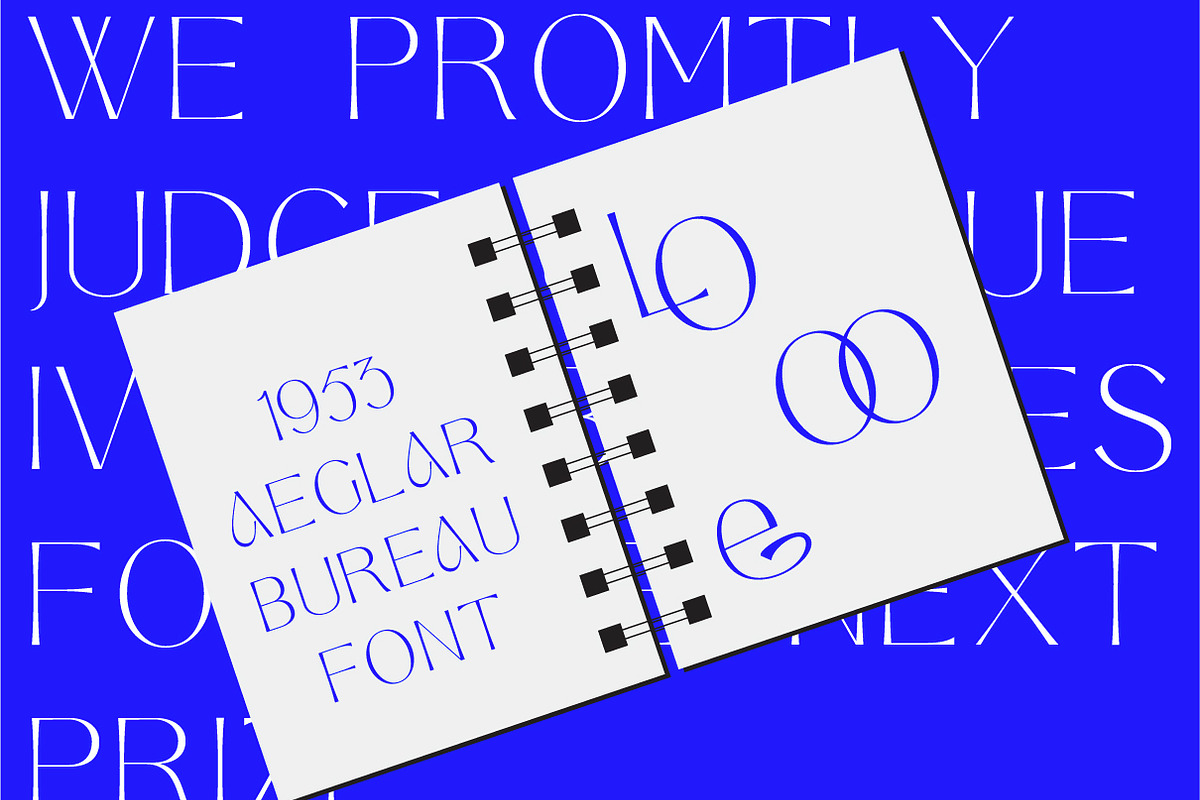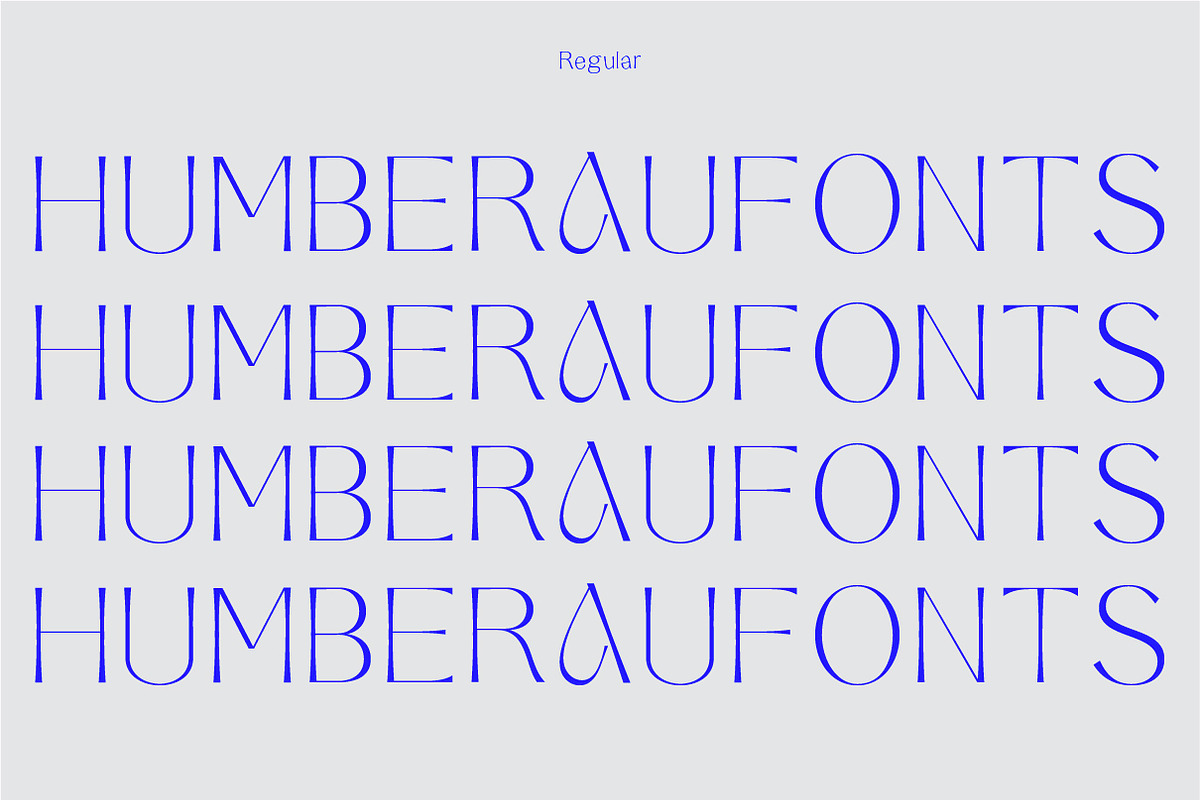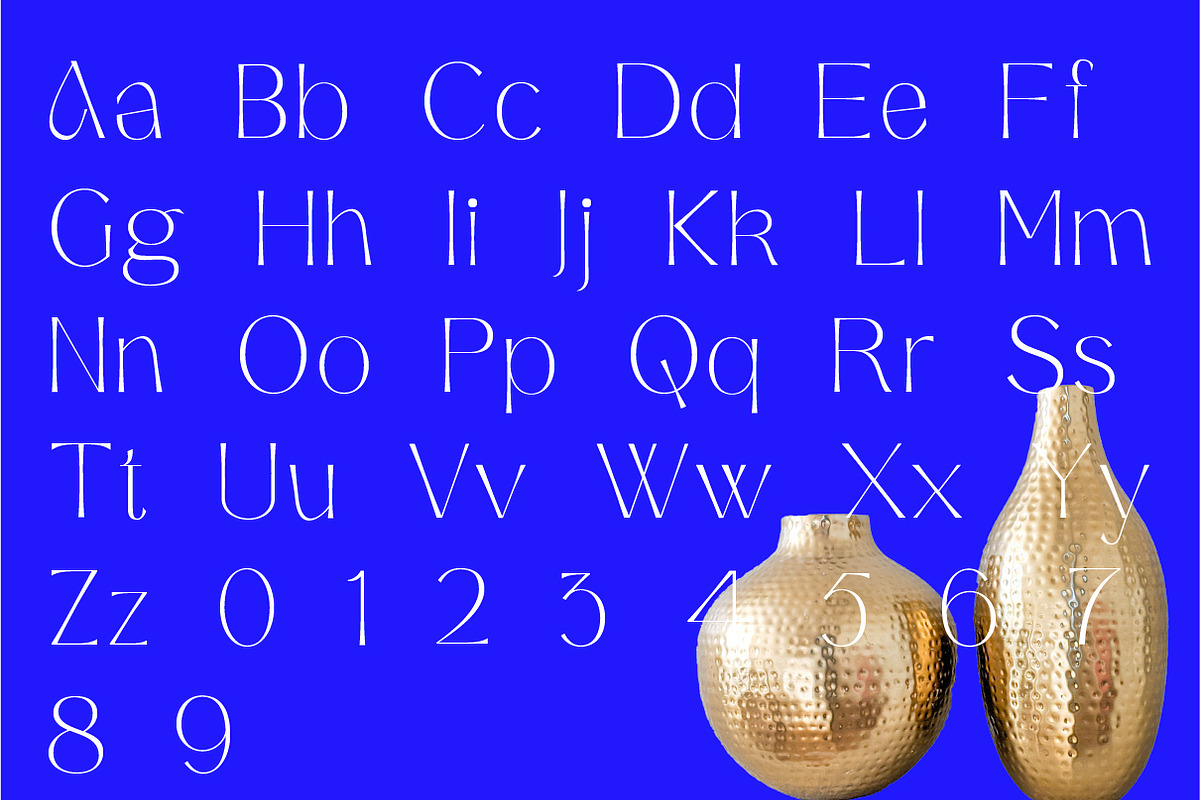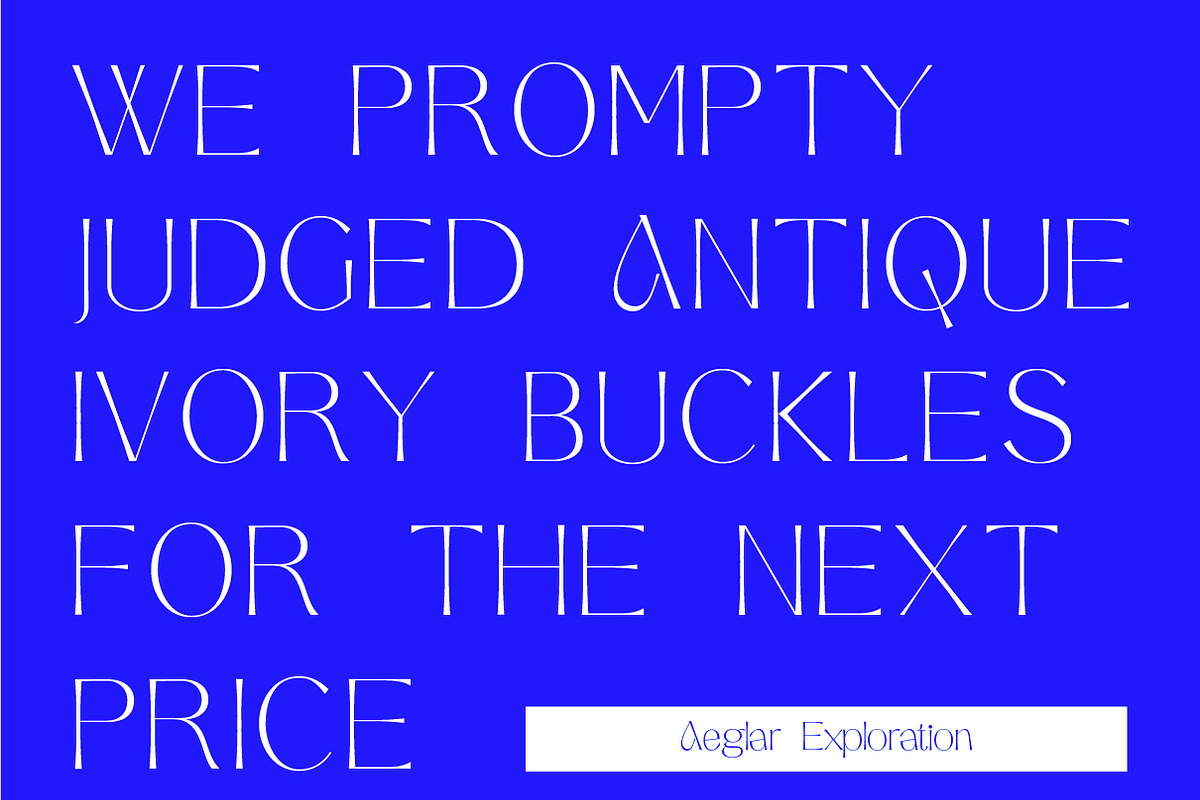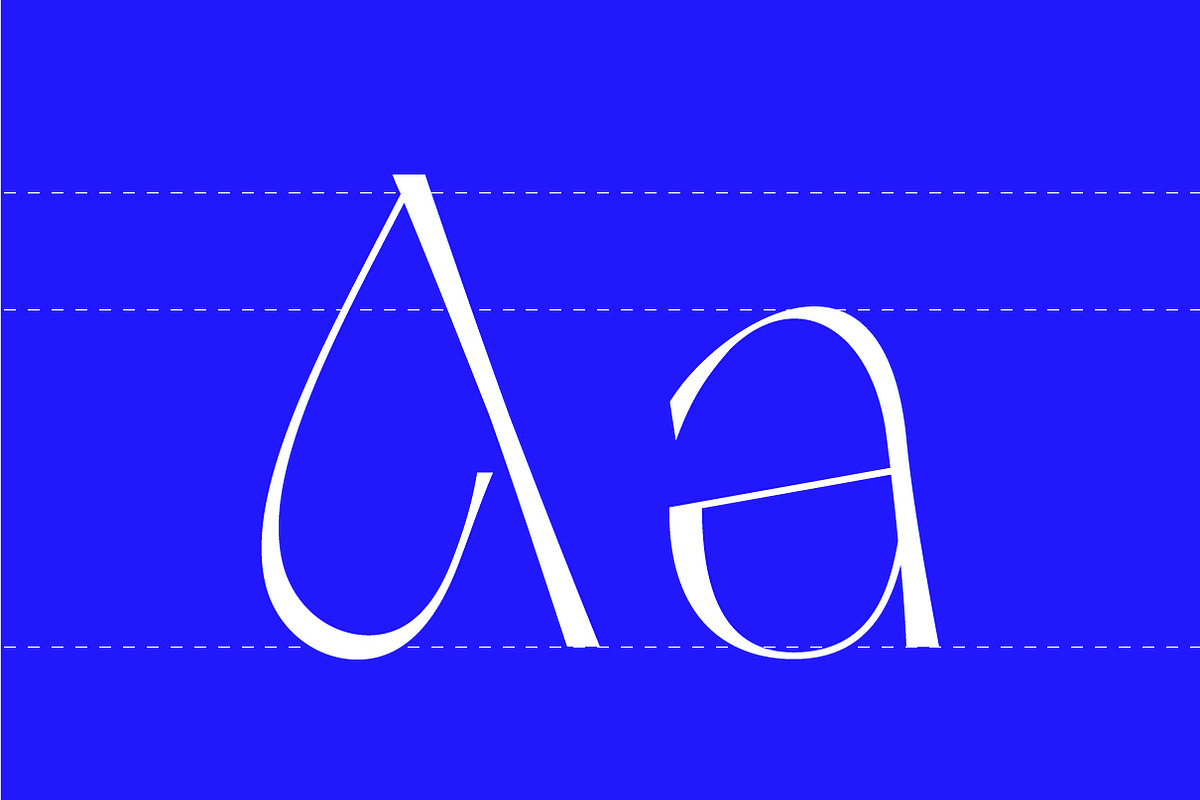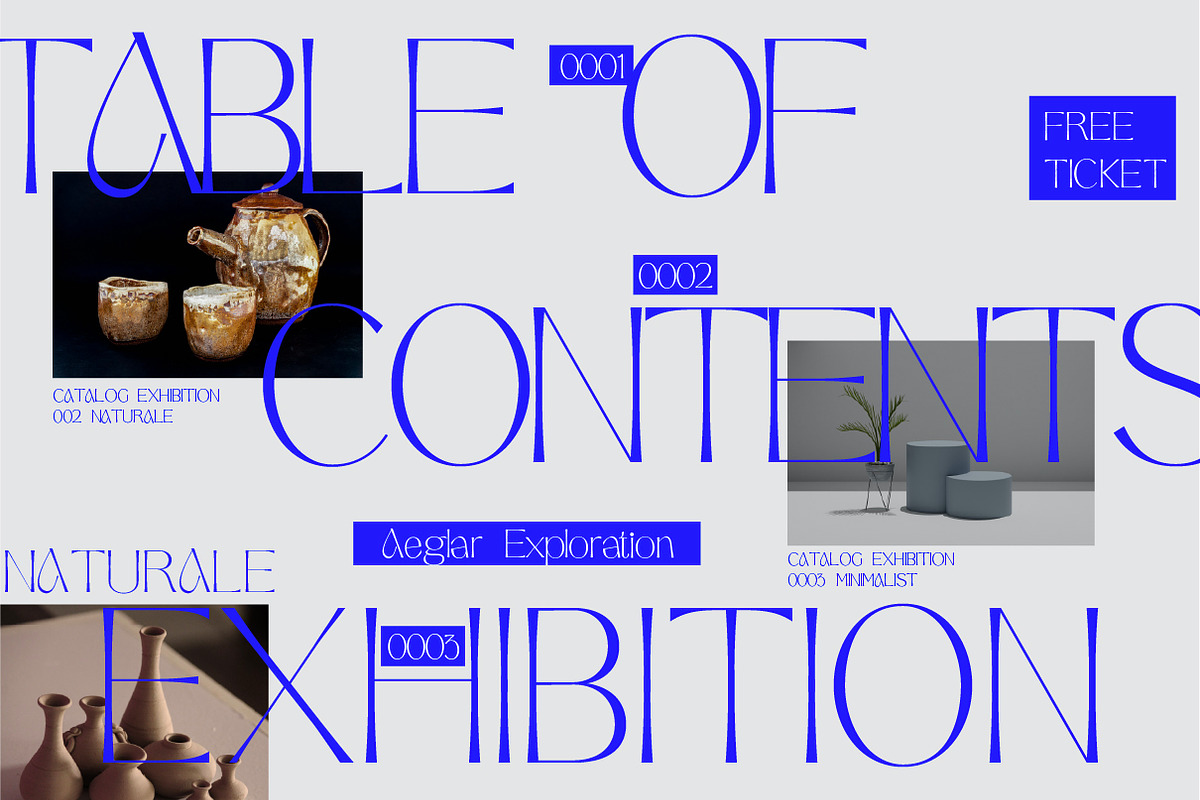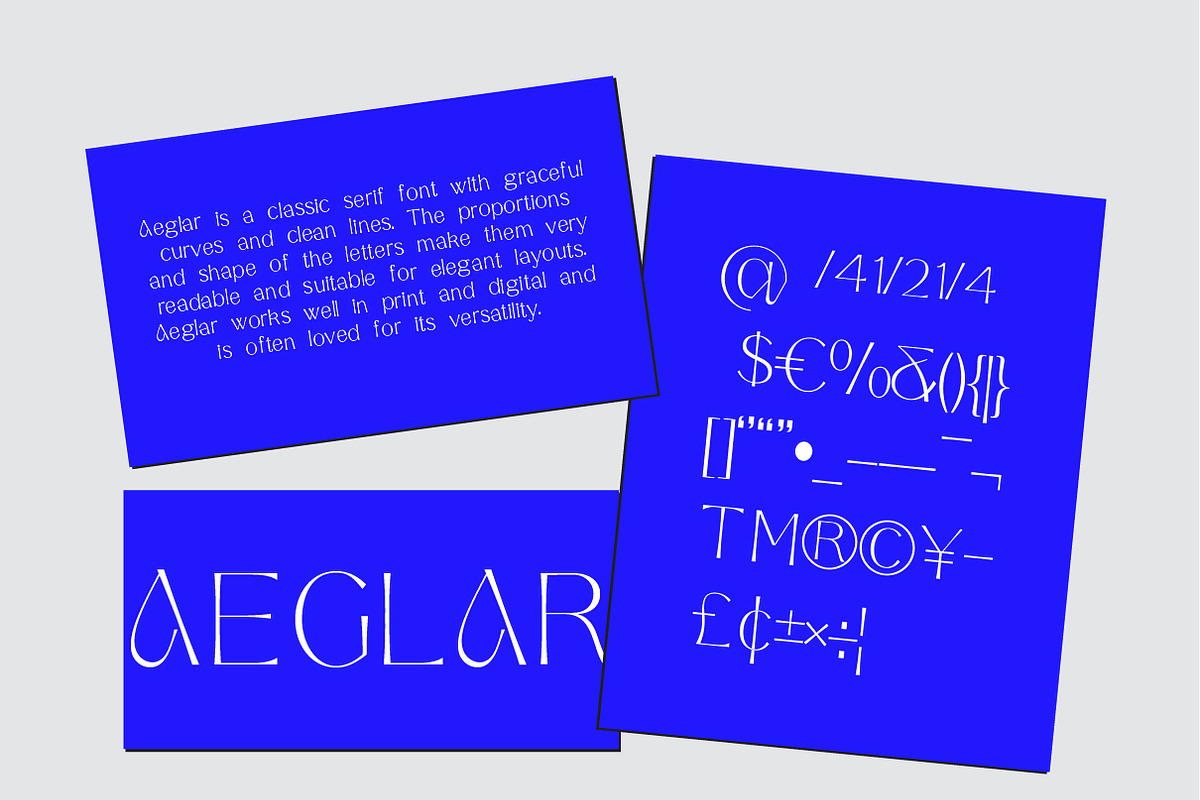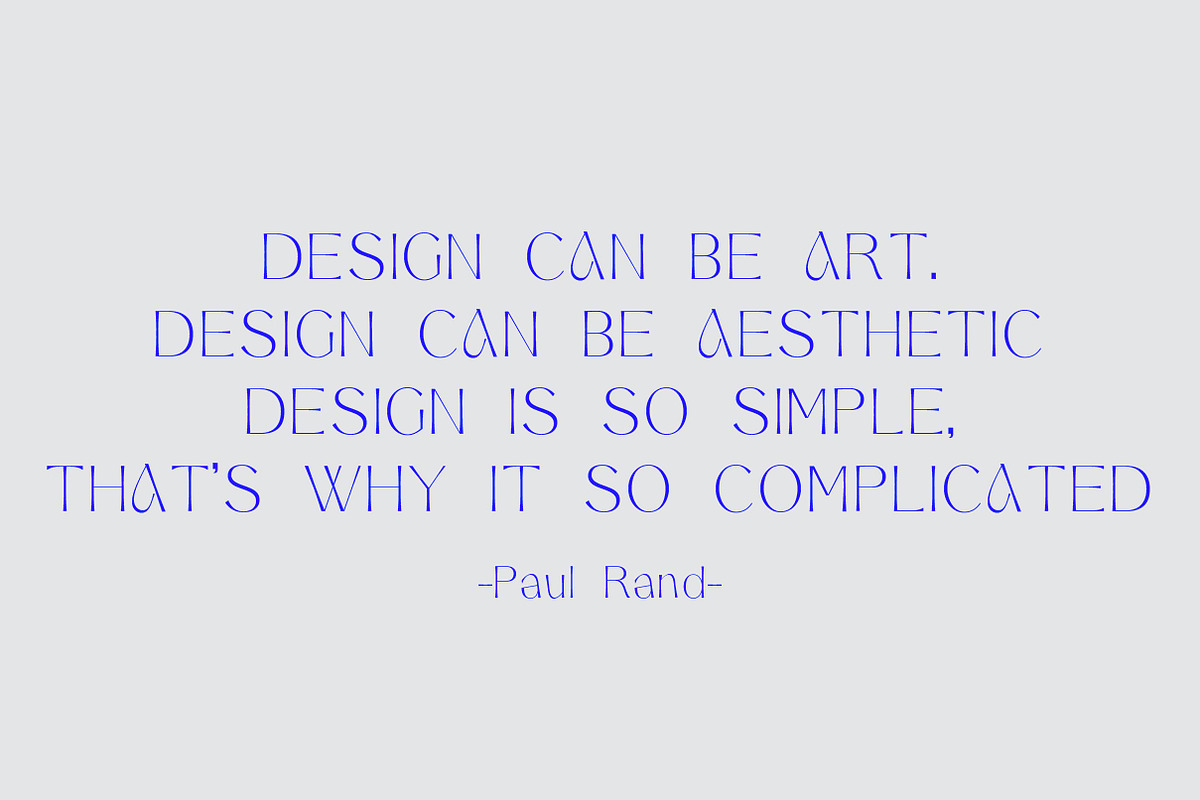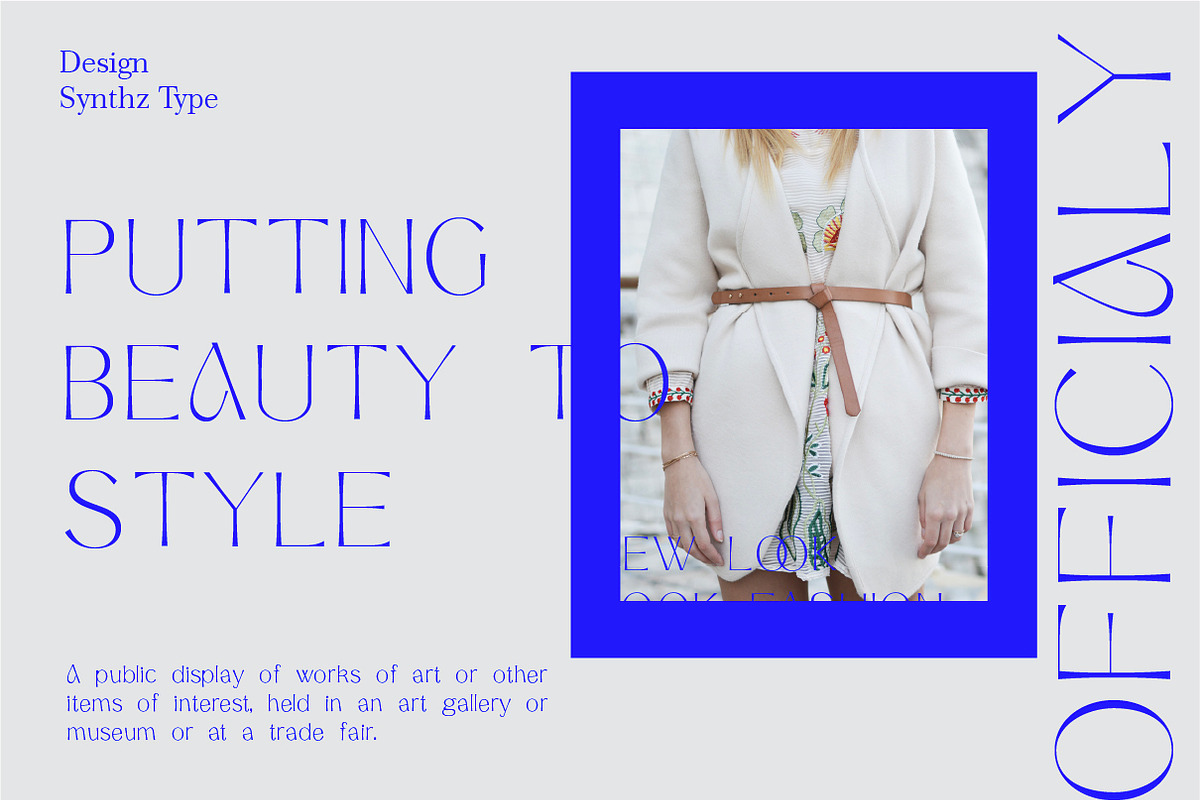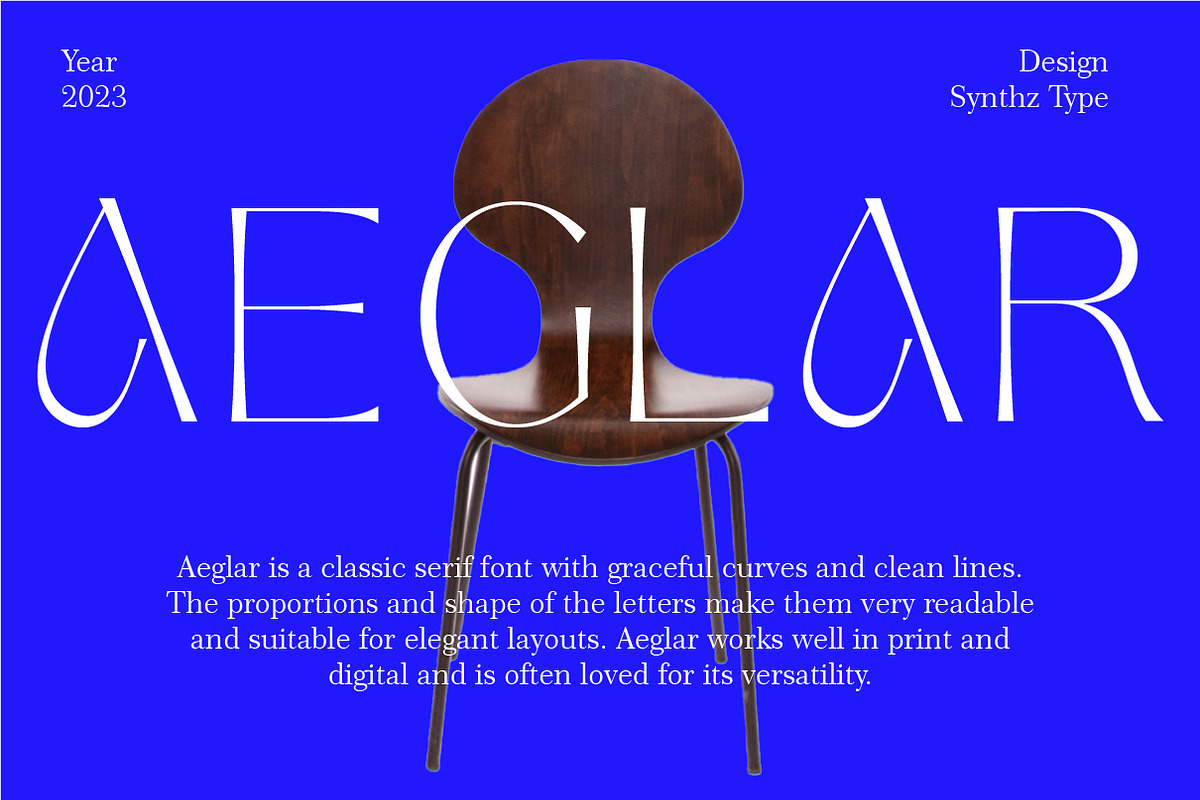
Aeglar Display
Aeglar is a classic serif font with graceful curves and clean lines. The proportions and shape of the letters make them very readable and suitable for elegant layouts. Aeglar works well in print and digital and is often loved for its versatility.